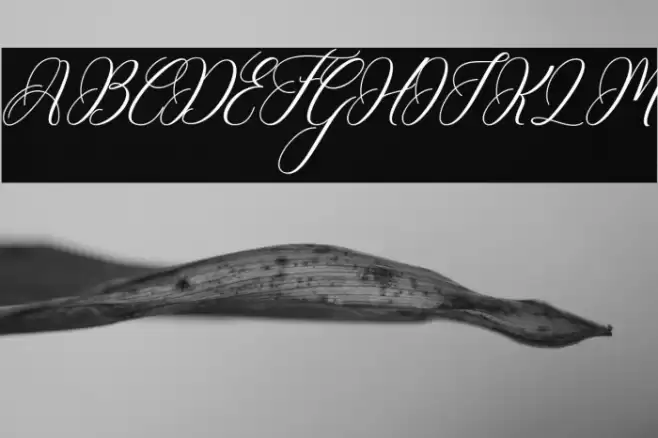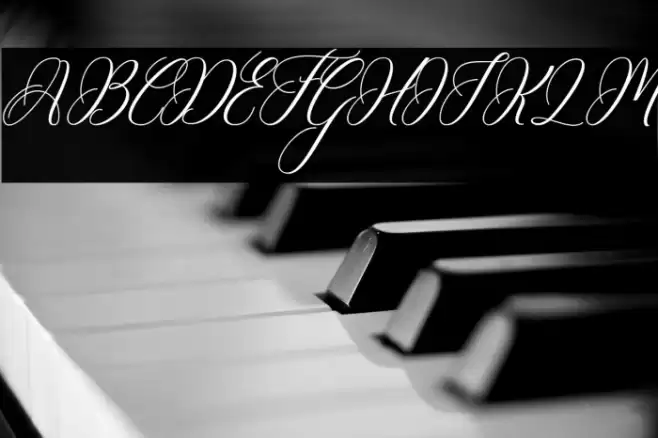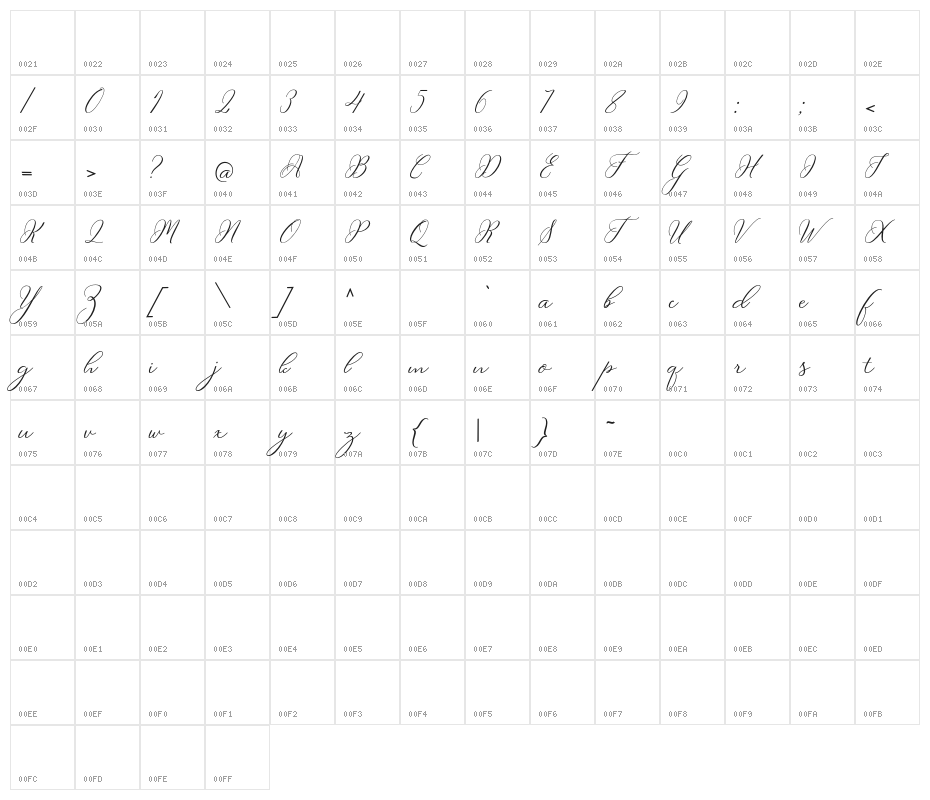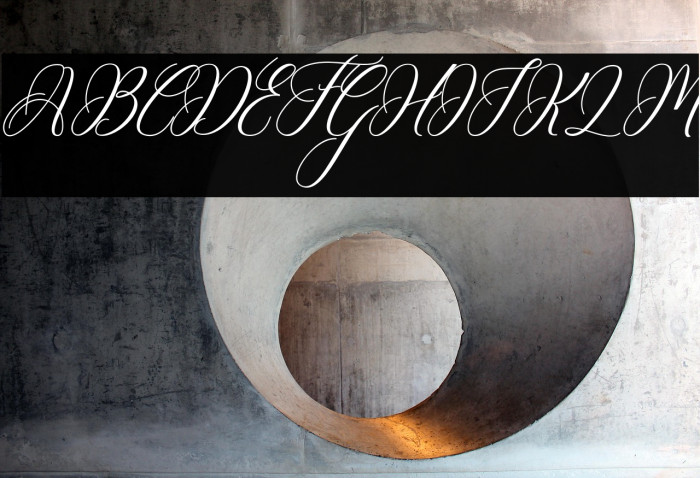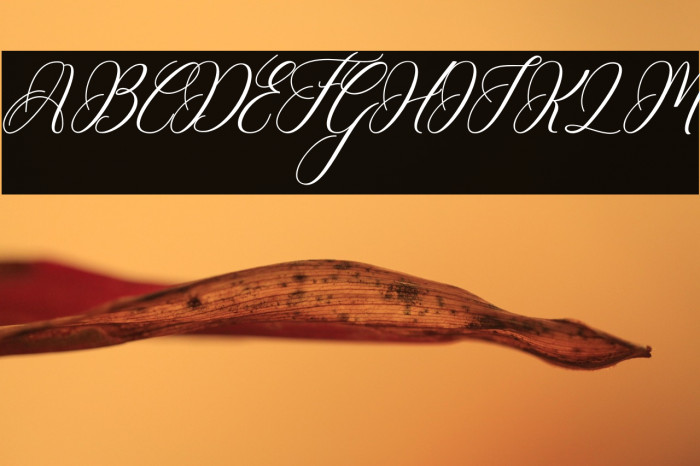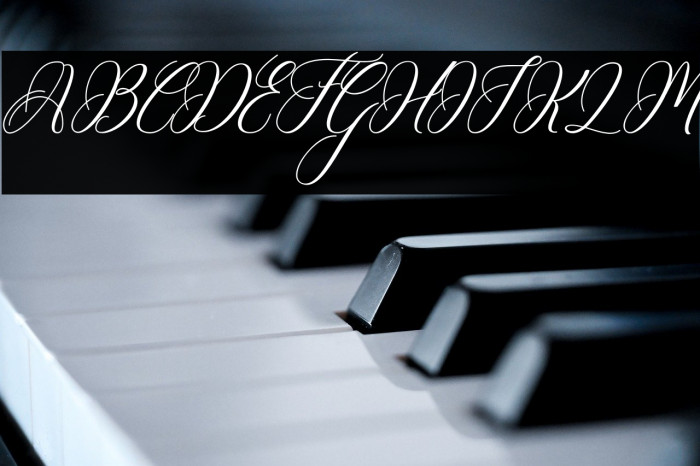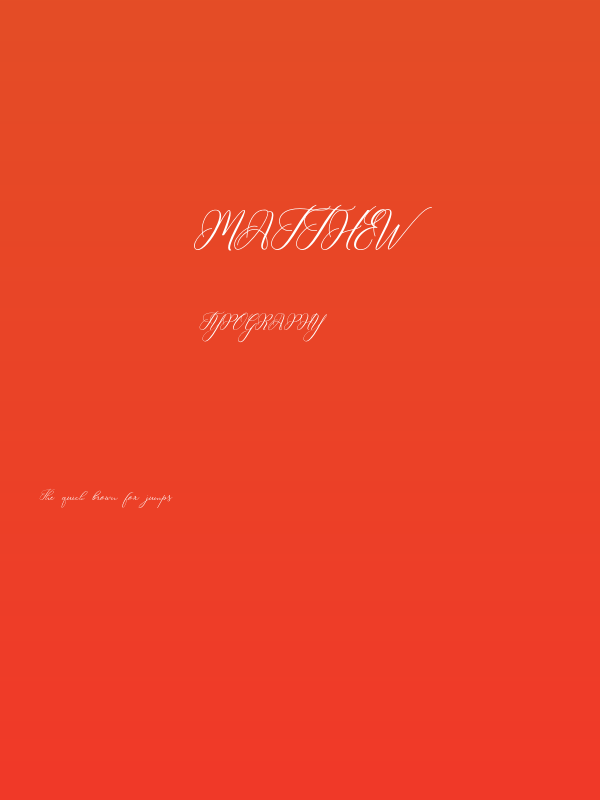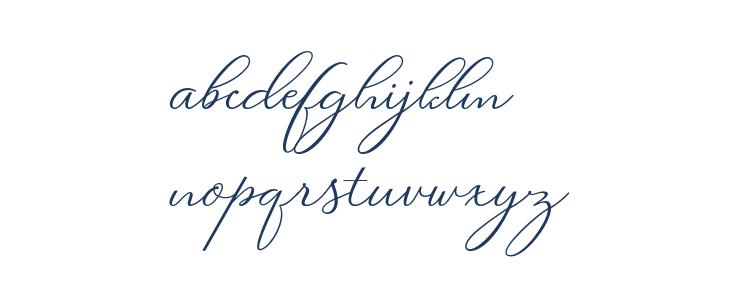
Matthew Font
Matthew Description
This elegant script font features flowing, cursive letterforms with a classic and sophisticated appearance. The characters are intricately designed with smooth curves and delicate strokes, giving it a refined and graceful look. The uppercase letters are particularly ornate, with elaborate loops and flourishes, while the lowercase letters maintain a consistent style that complements the overall design. The numerals and special characters are crafted to match the elegance of the alphabet, making this font ideal for formal invitations, branding, and decorative purposes.
An elegant script font with flowing, cursive letterforms and ornate details from Uncategorized fonts.
- Font: Matthew
- Proposed Projects: Ideal for wedding invitations, luxury branding, greeting cards, and decorative headings.
- Overall Style: Classic
- Use Case: Logos, Invitations, Decorative text